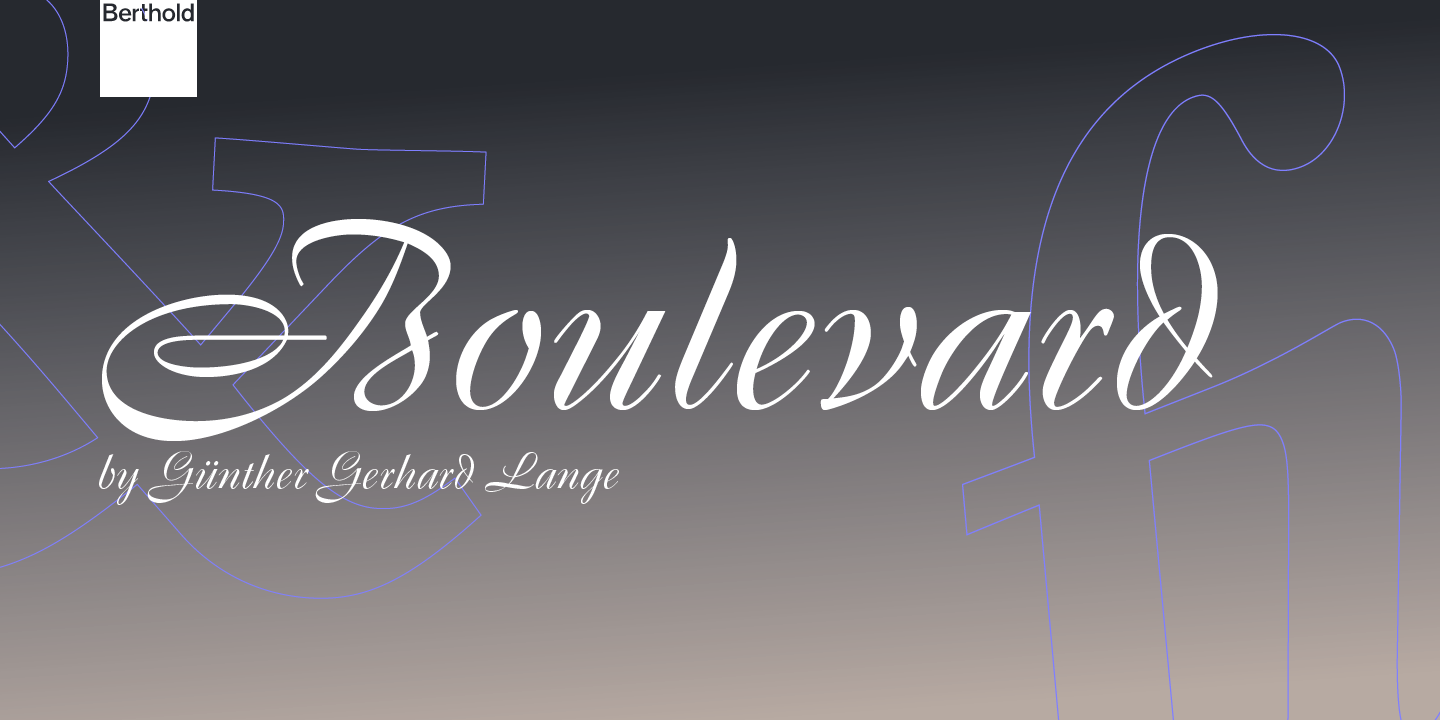
Boulevard Font is perfect for urban design projects including city tourism campaigns, metropolitan restaurant branding, urban planning materials, street art exhibitions, downtown development promotions, city guide publications, urban lifestyle magazines, and cosmopolitan marketing initiatives. This sophisticated typeface excels in city hall communications, metropolitan transit systems, urban architecture firms, downtown business districts, and projects that celebrate the energy and sophistication of metropolitan living.
What makes Boulevard Font exciting is its cosmopolitan urban character that perfectly captures the essence of city sophistication and metropolitan elegance. The font features streamlined letterforms with contemporary flair that reflects the dynamic energy and cultural diversity of bustling boulevards. Its modern design elements embody the spirit of urban innovation and metropolitan lifestyle, making it perfect for projects that need to convey sophistication, connectivity, and connection to city culture. The carefully crafted urban rhythm creates an atmosphere of metropolitan vitality and cosmopolitan refinement.
Boulevard Font comes in multiple family variations including metropolitan, downtown, avenue, and promenade styles. Each weight maintains the distinctive urban character while offering different levels of cosmopolitan intensity and city presence. The font family includes urban alternates, metropolitan ligatures, and boulevard variations that provide designers with comprehensive options for creating truly sophisticated and urbanely authentic typographic compositions that celebrate city living.
Whether you're designing urban branding, creating metropolitan marketing materials, or developing city promotional graphics, Boulevard Font Free Download provides the perfect typographic foundation for projects that celebrate urban excellence and metropolitan sophistication. This exceptional typeface transforms ordinary text into compelling expressions of city energy and cosmopolitan elegance. Download this remarkable font today and navigate your design projects through the sophisticated streets and cultural boulevards that capture the vibrant spirit of metropolitan life and urban sophistication.